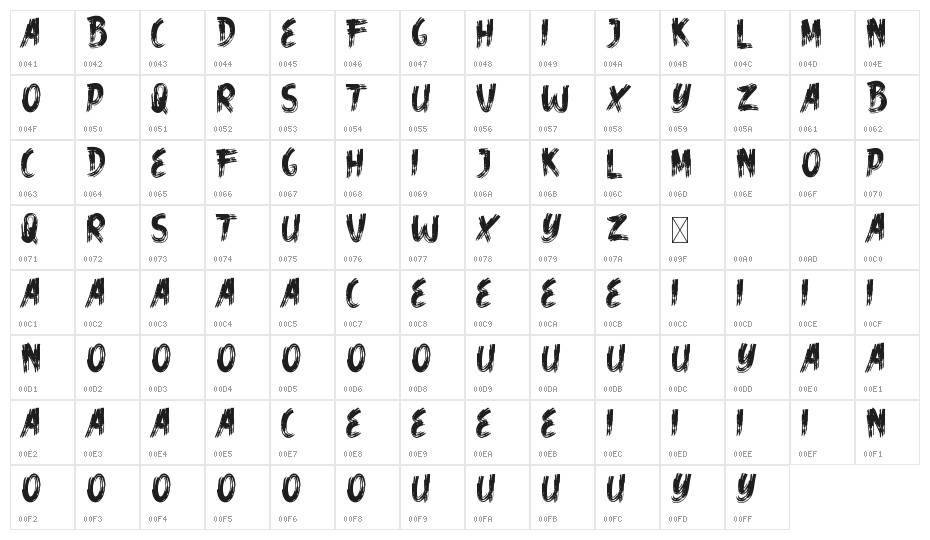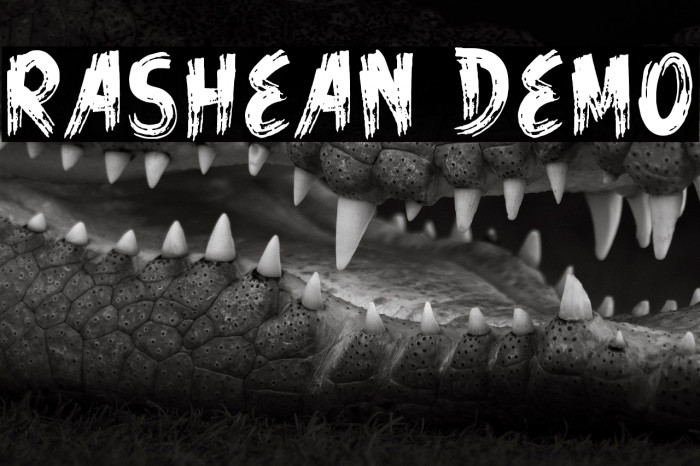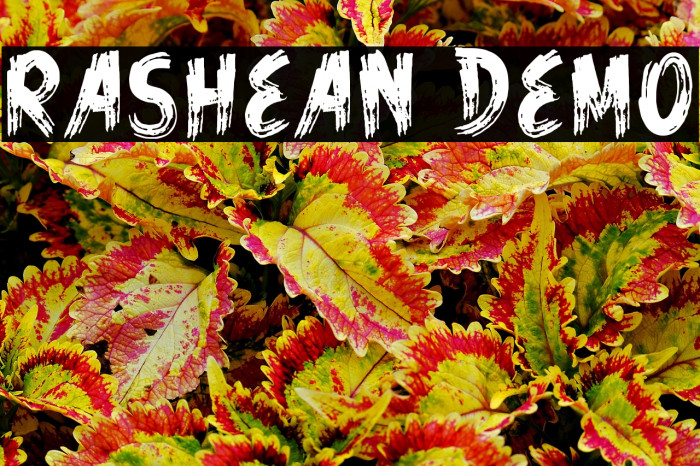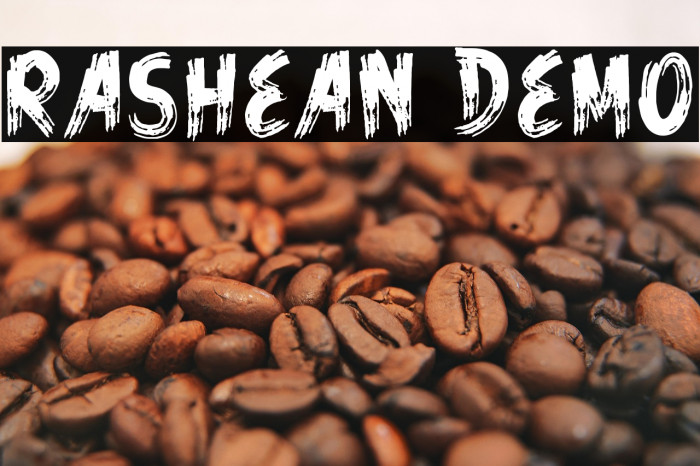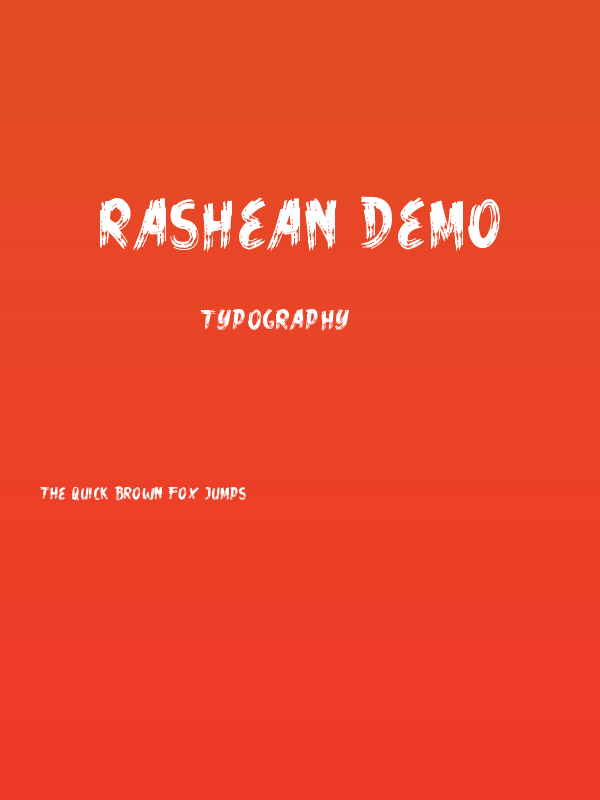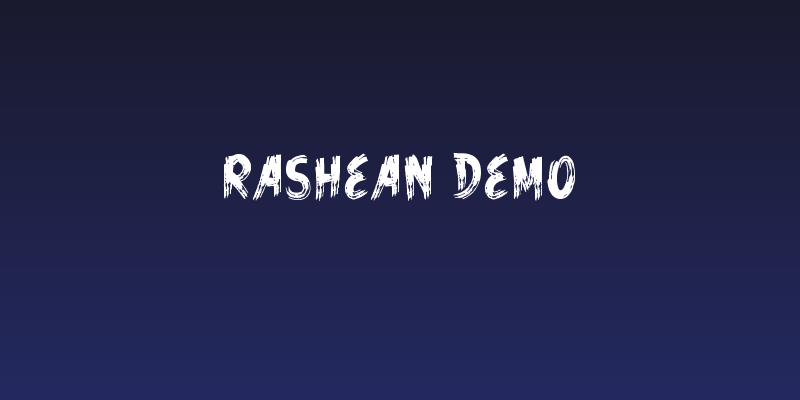
Rashean Demo Font
Rashean Demo Description
This font features a bold, brush-stroke style that gives it a dynamic and energetic appearance. The letters are characterized by uneven edges and varying stroke widths, creating a sense of movement and spontaneity. The uppercase and lowercase letters maintain a consistent style, with a slightly condensed form that enhances the boldness of the design. The numbers and special characters follow the same aesthetic, ensuring a cohesive look across all characters. This font is ideal for projects that require a strong visual impact and a touch of artistic flair.
| Overall Style | Modern, Artistic |
| Proposed Projects | Ideal for posters, album covers, branding, and any project needing a bold artistic touch. |